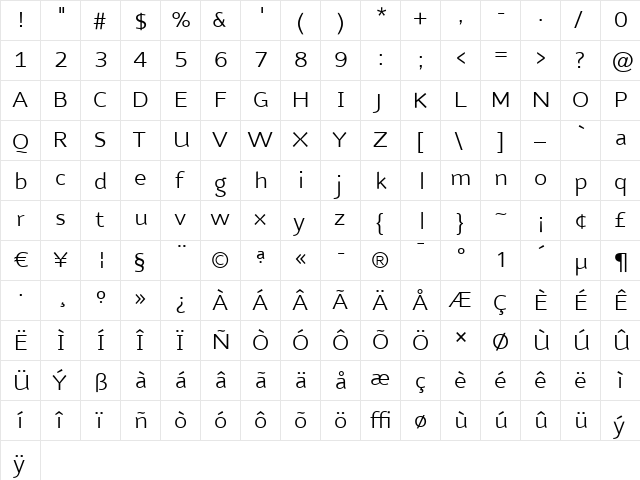
NubianAlt-Light Light Font Preview
NubianAlt-Light Light
NubianAlt-Light Light Font Details
| Foundry | \ G-Type. Designed and digitized by Nick Cooke |
Design Context for NubianAlt-Light Typeface
NubianAlt-Light is a composed and adaptable typeface that performs quietly and consistently across a wide range of design contexts. Its slender proportions lend an understated elegance to any composition.